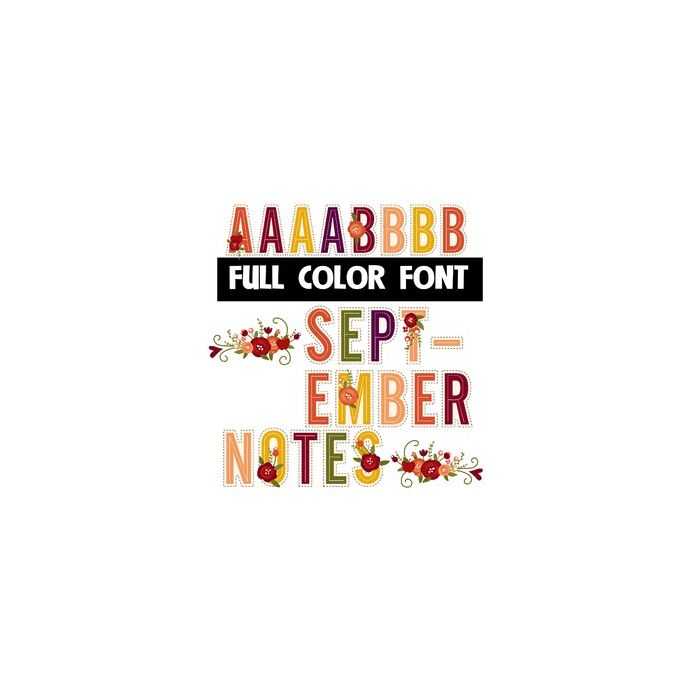
This full-color font features autumn colored flowers and apples. There is an alt upper and lowercase with additional colors that you can access through Silhouette's glyph map. Use the triangle brackets to type the pretty floral flourish.